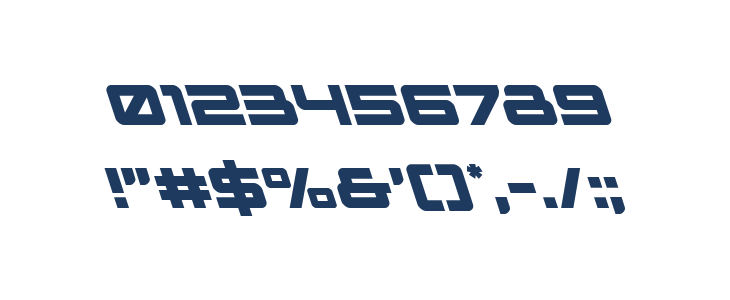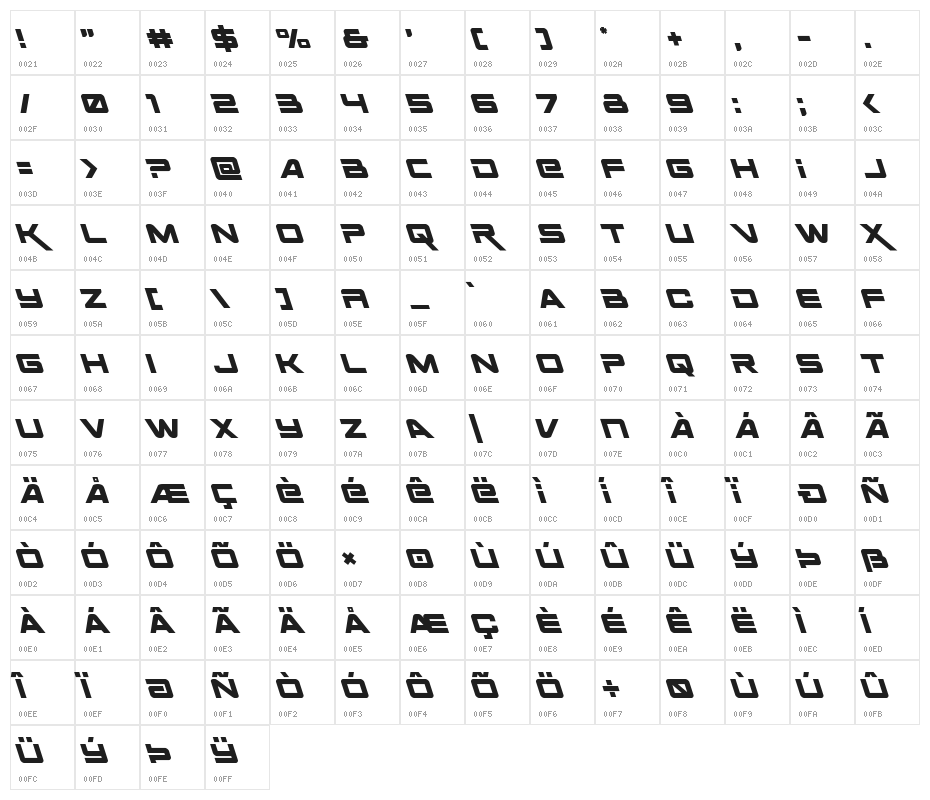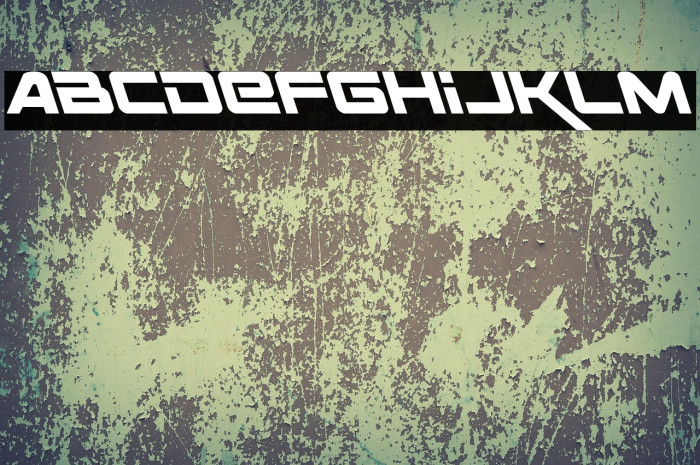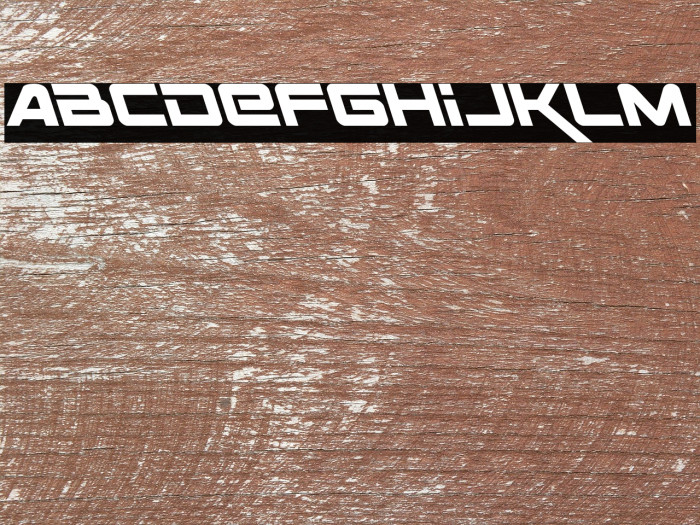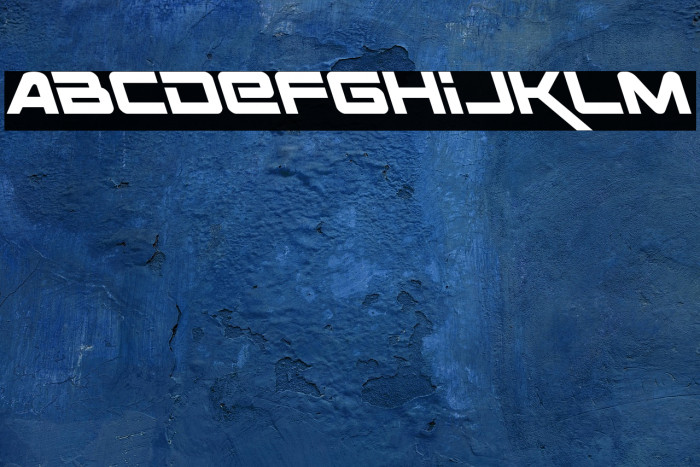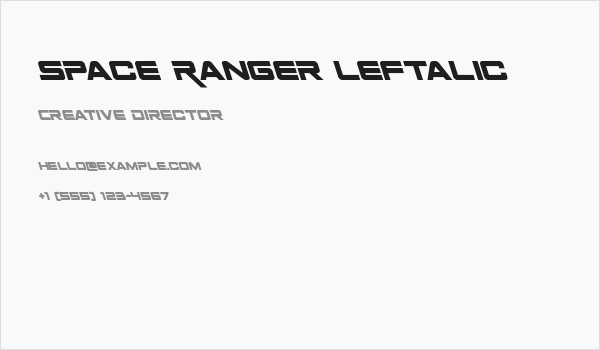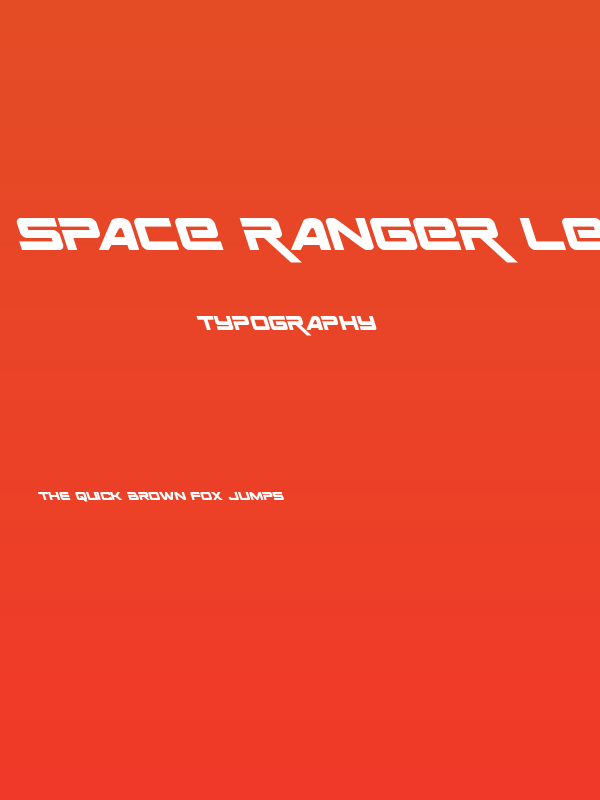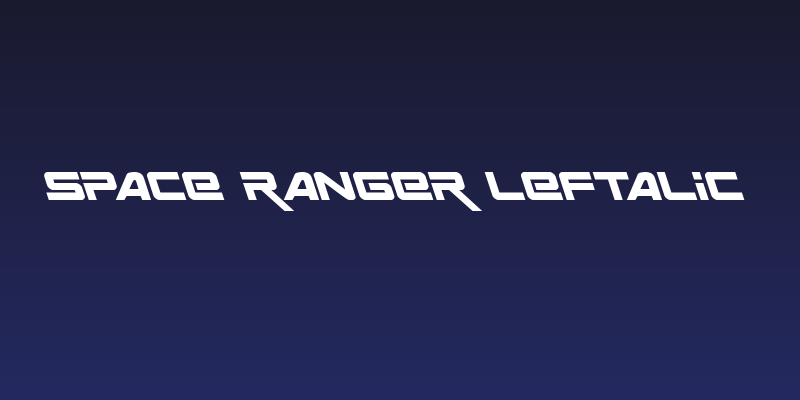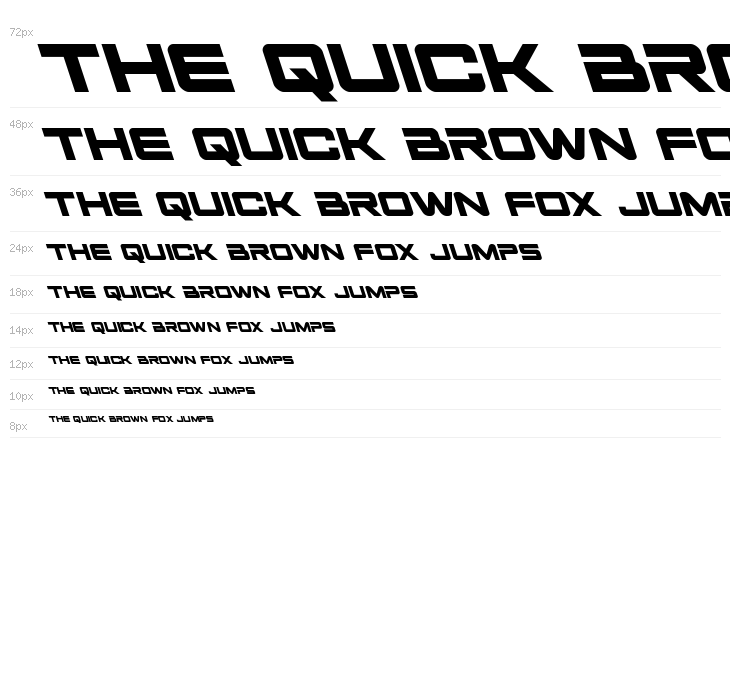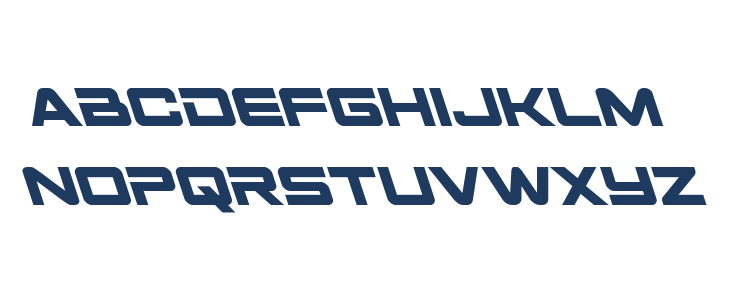
Space Ranger Leftalic Font
Space Ranger Leftalic Description
This font features a futuristic and angular design, characterized by sharp edges and a bold presence. The letters are slightly slanted, giving a dynamic and forward-moving appearance. The uppercase and lowercase letters maintain a consistent style, with geometric shapes and a uniform thickness throughout. Numbers and special characters follow the same aesthetic, ensuring a cohesive look across all text elements. The font's unique style makes it stand out, ideal for projects that require a modern and edgy feel.
| Proposed Projects | Ideal for sci-fi themed designs, video game titles, movie posters, and tech branding. |